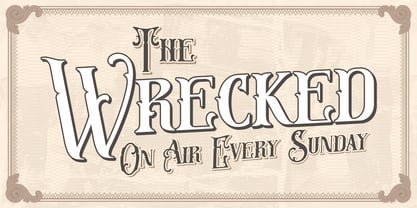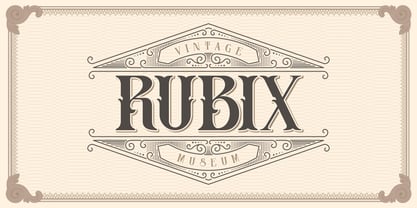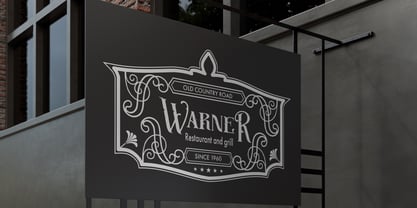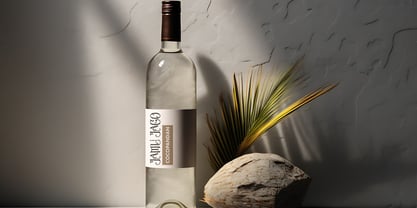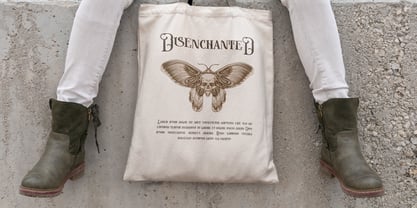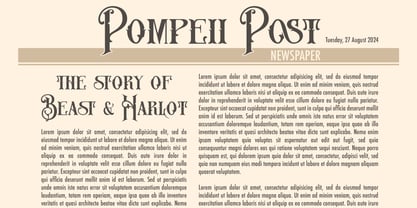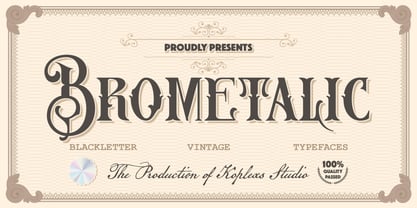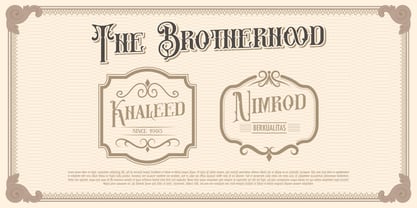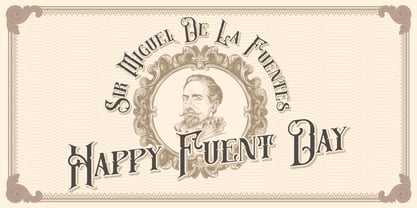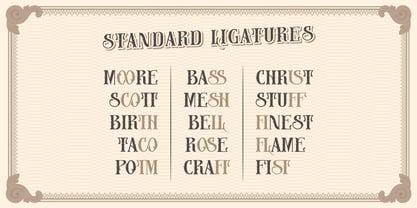
Brometalic
Vintage Blackletter Typeface with Victorian, Gothic & Old English Character
Brometalic Font is a premium vintage blackletter typeface inspired by classic Victorian lettering, Gothic typography, and traditional Old English calligraphy. Carefully crafted with ornamental details and elegant decorative strokes, this typeface delivers a timeless aesthetic that combines historical authenticity with modern versatility.
Designed for designers, branding specialists, and creative professionals, Brometalic Font brings a bold and sophisticated presence to logos, headlines, packaging, posters, labels, and editorial projects. Its distinctive letterforms evoke the atmosphere of antique signage, heritage branding, vintage advertisements, medieval manuscripts, and luxury product packaging.
The font features strong readability while maintaining the intricate characteristics that define classic blackletter typography. Whether used for a premium wine label, tattoo-inspired artwork, restaurant branding, apparel design, book covers, certificates, or eye-catching poster headlines, Brometalic creates an unforgettable visual impact.
Ideal For
• Logo Design
• Luxury Branding
• Wine Labels
• Tattoo Designs
• Vintage Posters
• Book Covers
• Magazine Headlines
• Packaging Design
• Restaurant & Café Branding
• Barbershop Identity
• Merchandise & Apparel
• Signage & Advertising
• Certificates & Invitations
• Social Media Graphics
Create timeless designs with the authentic elegance of Brometalic Font and give your projects a distinctive vintage character that stands out across branding, print, and digital media.